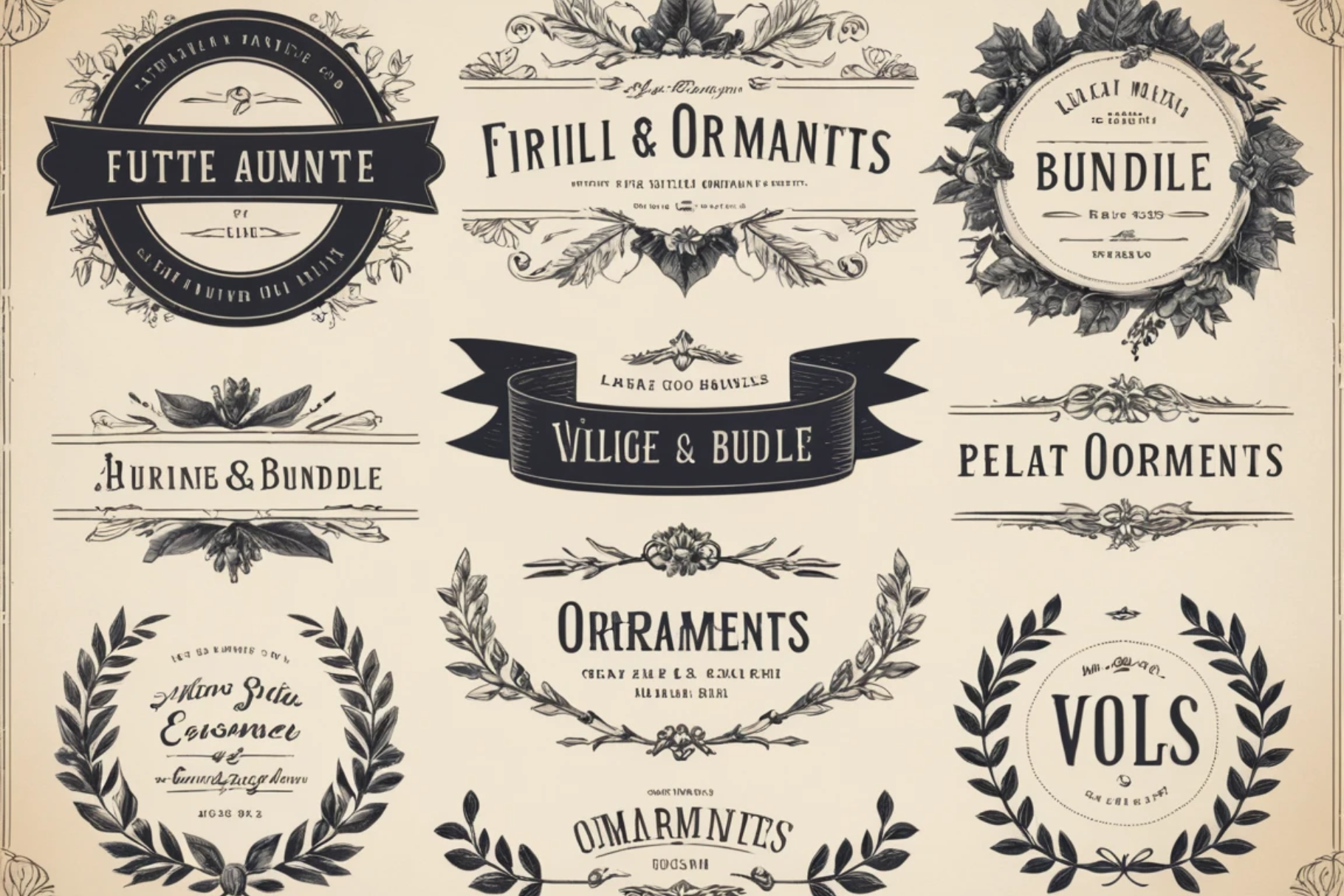
Vintage Font Bundle & Ornaments
The Vintage Font Bundle & Ornaments is a curated collection of retro-inspired typefaces paired with decorative elements. Featuring a variety of serif, script, and display fonts, it captures the charm of classic typography, making it ideal for branding, packaging, posters, and nostalgic designs.